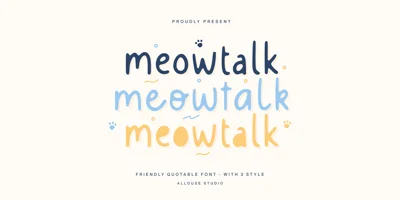
Meowtalk Font
The Meowtalk Font is a wonderfully playful and often whimsical display typeface, characterized by its charming, friendly forms and a distinctly lighthearted, perhaps cat-inspired aesthetic. Imagine its lively characters gracing the titles of children's storybooks about pets, adding a fun and quirky touch to pet food packaging, or creating delightful headlines for animal shelter promotions and cat-themed merchandise. Its soft curves and inviting appearance also make it an excellent choice for unique greeting cards, joyful social media graphics for animal lovers, creative craft projects, and any design where a warm, imaginative, and approachable feel is desired. Whether you're aiming for a cheerful, cute look or a distinctly artistic touch with a carefree flair, Meowtalk Font delivers with its undeniable personality, ensuring your visuals are both inviting and truly memorable.
What makes Meowtalk Font so exciting is its ability to infuse designs with immediate joy and a sense of boundless, good-natured imagination. In a visual landscape that often benefits from a touch of lightness and fun, this font offers a refreshing alternative that captures attention with its distinctive and energetic letterforms. It's more than just a typeface; it's a tool for storytelling, allowing designers to convey warmth, playfulness, and a sense of gentle adventure effortlessly. This font excels at creating an emotional connection with the audience, making content feel more accessible and enjoyable, particularly for younger demographics or projects with a whimsical theme. Designers will find it an invaluable asset for creative projects that require a unique visual identity that truly stands out from the crowd. For a touch of delightful whimsy, consider the Meowtalk Font.
The Meowtalk Font family is typically designed to offer a delightful range of styles, enhancing its versatility across various creative applications. Beyond the foundational Meowtalk Regular typeface, you might discover playful companion styles such as a slightly bolder Meowtalk Bold for stronger emphasis, or subtle variations in its "cat-like" elements that add a different visual texture and dimension. Given its whimsical and often cartoon-inspired nature, the family may also include unique ligatures, alternate characters, or dingbats (perhaps paw prints or cat silhouettes) that perfectly complement its overall character, allowing for even greater customization. These diverse family members provide designers with the flexibility to craft engaging typographic compositions, ensuring visual consistency and maximum creative expression from prominent titles to smaller decorative elements, all while maintaining the font’s inherent charm.